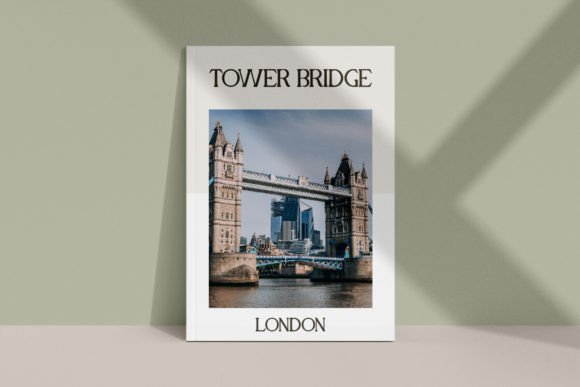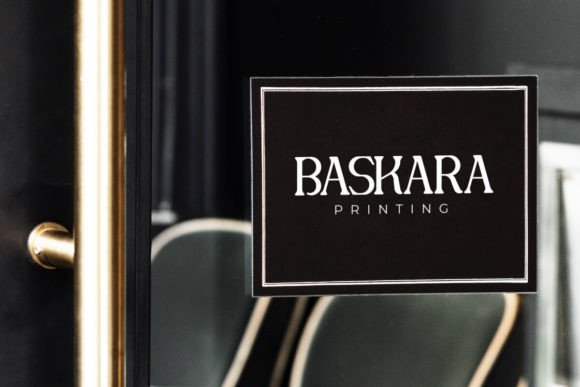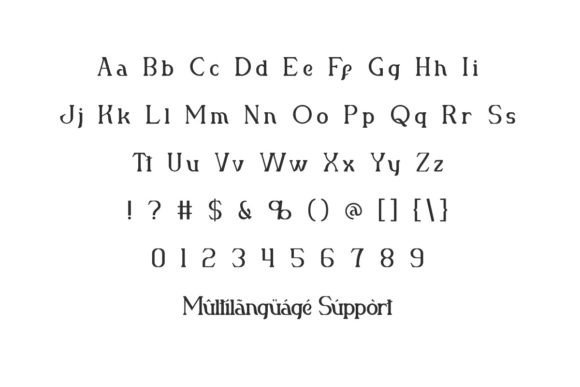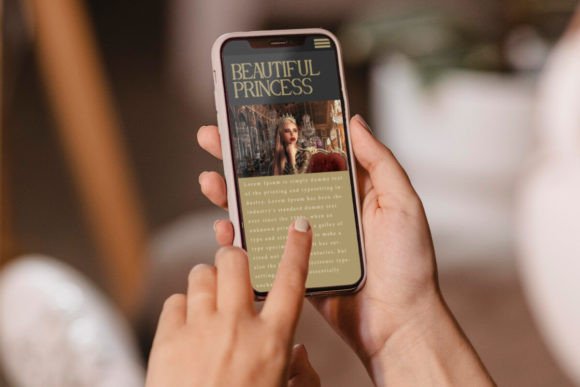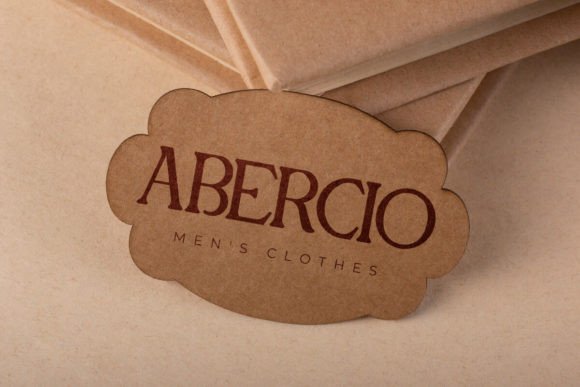
Introducing Balancing News Font: Elevate Your Designs with a Contemporary Serif Display Font
In the world of design, typography plays a crucial role in conveying messages and capturing audiences’ attention. A well-chosen font can elevate your designs, making them more engaging, professional, and memorable. If you’re a designer or crafter looking for a versatile and stylish font to take your projects to the next level, look no further than Balancing News Font.
What is Balancing News Font?
Balancing News Font is a serif display font that boasts a contemporary style, perfect for designers seeking to add a touch of sophistication to their work. Its unique design combines traditional serif elements with modern flair, making it an excellent choice for a wide range of applications.
Key Features of Balancing News Font
- Contemporary Style: Balancing News Font features a modern design that will instantly update your projects with a fresh and current look.
- Serif Display Font: The font’s serif design adds a touch of elegance and sophistication, making it perfect for high-end projects.
- Versatility: Balancing News Font is suitable for various design applications, from digital to print.
Use Balancing News Font to Elevate Your Designs
With Balancing News Font, the possibilities are endless. Here are some design projects where this font can make a significant impact:
- Apps: Create stunning app designs with Balancing News Font, perfect for headers, titles, and promotional materials.
- Billboards: Make a bold statement with this font on billboards, ensuring your message is seen and remembered.
- Brand Logos: Establish a strong brand identity with Balancing News Font, ideal for logos that require a modern and sophisticated look.
- Brochures: Elevate your marketing materials with this font, perfect for brochures that need to make a lasting impression.
- Business Cards: Stand out from the competition with Balancing News Font on your business cards, showcasing your professionalism and style.
- Catalogs: Create visually appealing catalogs with this font, making your products shine.
- Covers: Design eye-catching book covers, magazine covers, or album covers with Balancing News Font.
- Embossed Designs: Add a touch of luxury to your embossed designs, such as packaging or stationery.
- Flyers: Create engaging flyers with this font, perfect for promoting events, products, or services.
- Headers: Use Balancing News Font for headers, titles, and subtitles in various design projects.
- Invitations: Make your invitations special with this elegant font, suitable for weddings, parties, or corporate events.
- Labels: Design professional-looking labels for products, files, or folders with Balancing News Font.
- Magazine Catalogs: Create stunning magazine catalogs with this font, perfect for showcasing products or services.
- Mockup Designs: Use Balancing News Font in your mockup designs to create realistic and engaging visuals.
- Newspaper: Design a professional-looking newspaper with this font, ideal for headlines, titles, and articles.
- Poster: Create striking posters with Balancing News Font, perfect for promoting events, products, or causes.
- Product Packaging: Elevate your product packaging with this font, making your brand stand out on store shelves.
- Quote: Design inspiring quote graphics with Balancing News Font, perfect for social media, blogs, or websites.
- Screen Print: Create stunning screen print designs with this font, ideal for t-shirts, hoodies, or other apparel.
- Signage: Use Balancing News Font for signage, ensuring your message is clear and visible.
- Stationery: Design professional-looking stationery with this font, perfect for letters, invoices, or memos.
- Sticker: Create eye-catching stickers with Balancing News Font, ideal for laptops, water bottles, or other promotional items.
- Title: Use this font for titles, headings, and subtitles in various design projects.
- Website: Enhance your website’s typography with Balancing News Font, making your content more engaging and readable.
Why Choose Balancing News Font?
With so many fonts available, why choose Balancing News Font? Here are a few reasons:
- Unique Design: Balancing News Font features a distinctive design that will set your projects apart from the rest.
- Versatility: This font is suitable for a wide range of design applications, making it a valuable addition to your font library.
- Easy to Read: Despite its modern style, Balancing News Font remains highly legible, ensuring your message is conveyed clearly.
Balancing News Font is a powerful tool for designers and crafters seeking to elevate their projects with a contemporary serif display font. Its versatility, unique design, and legibility make it an excellent choice for a wide range of applications. Whether you’re working on a digital project or a print design, Balancing News Font is sure to make a lasting impression.